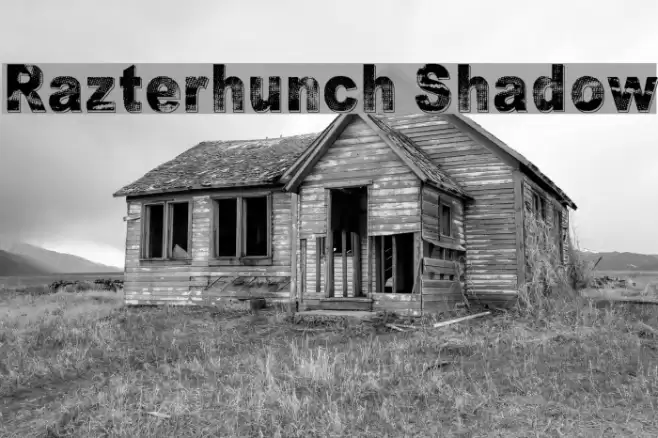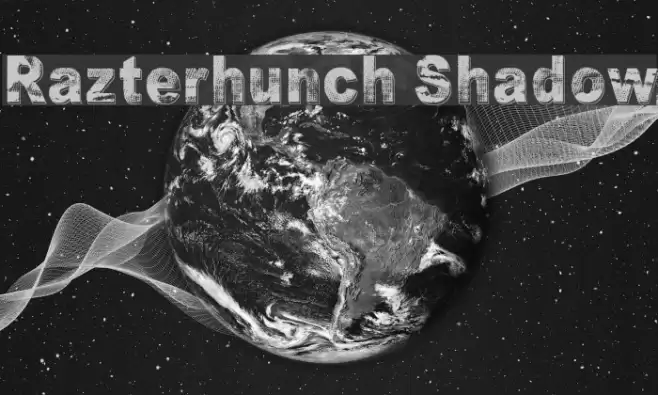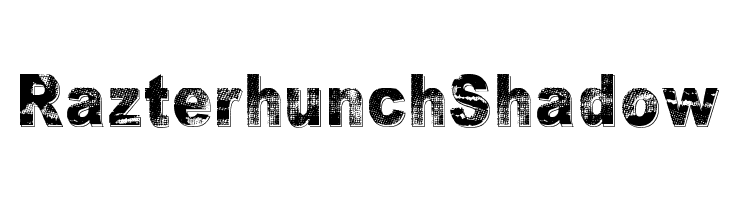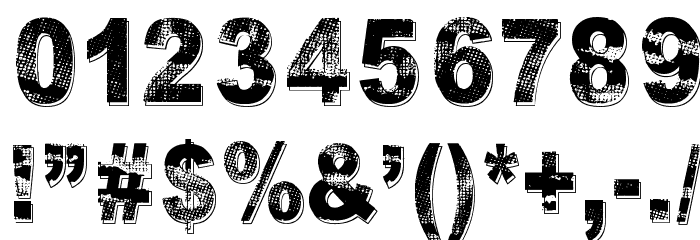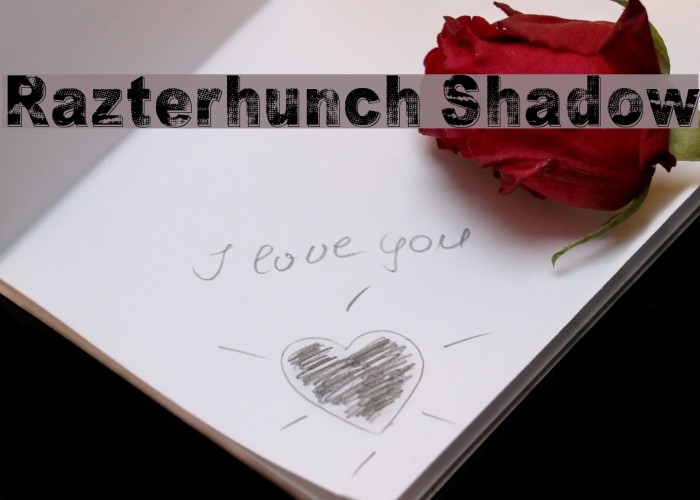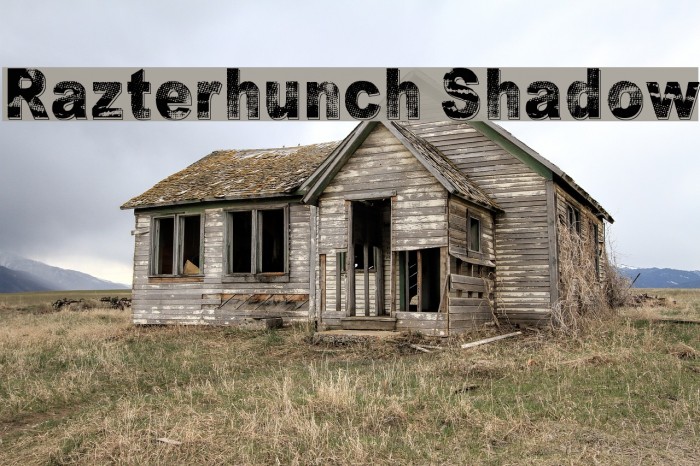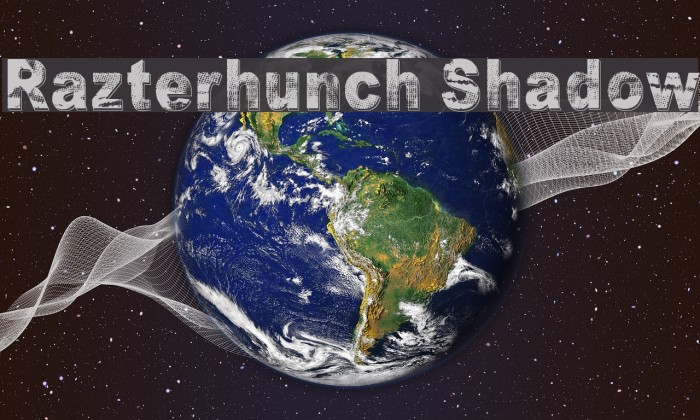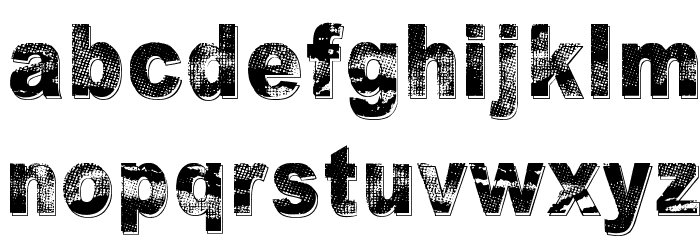
Razterhunch Shadow Font
Razterhunch Shadow Description
This font features a bold and distressed style, characterized by a shadow effect that gives it a rugged and textured appearance. The uppercase and lowercase letters, along with numbers and special characters, are designed with a unique worn-out look, making it ideal for projects that require a vintage or grunge aesthetic. The boldness of the characters ensures high visibility, while the shadow adds depth and dimension. This font is perfect for creating eye-catching headlines, posters, and logos that demand attention and convey a sense of edginess and creativity.
A bold, distressed font with a shadow effect, ideal for vintage and grunge designs from Distorted Eroded fonts.
- Proposed Projects: Posters, album covers, logos, branding materials, and any design needing a bold, vintage look.
- Overall Style: Vintage, Grunge